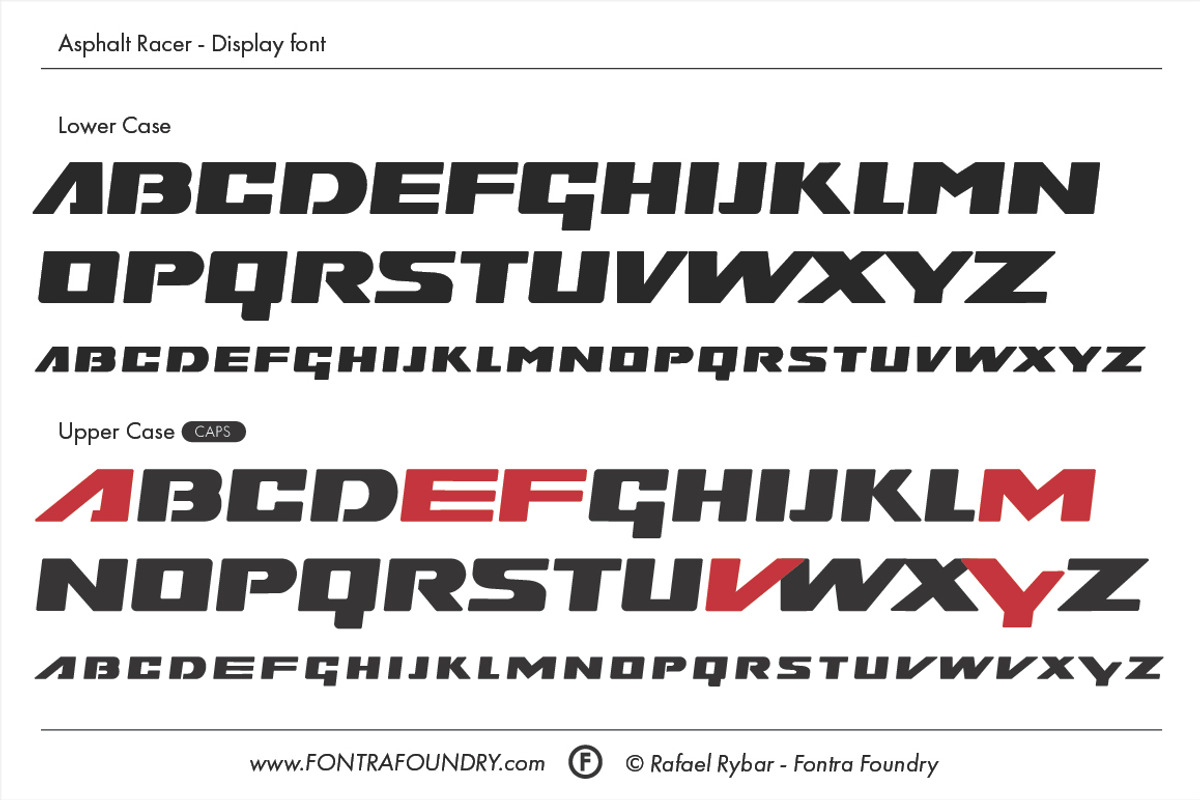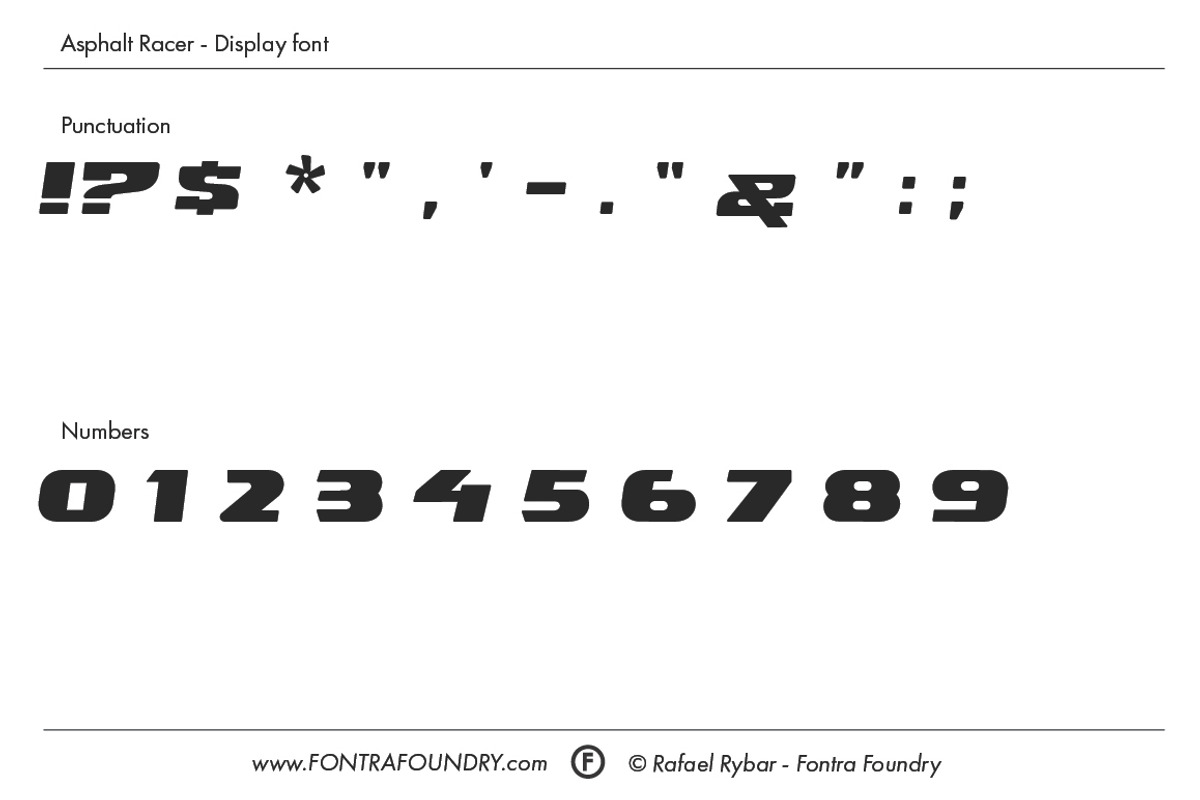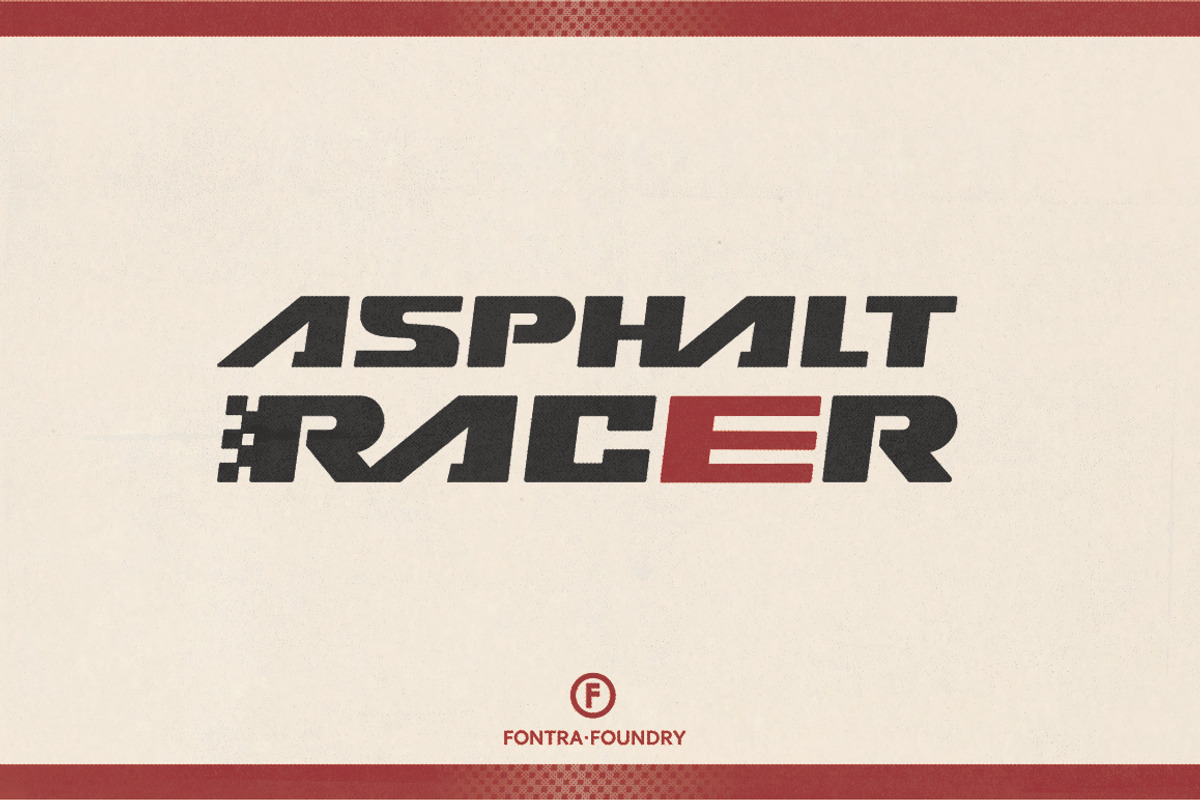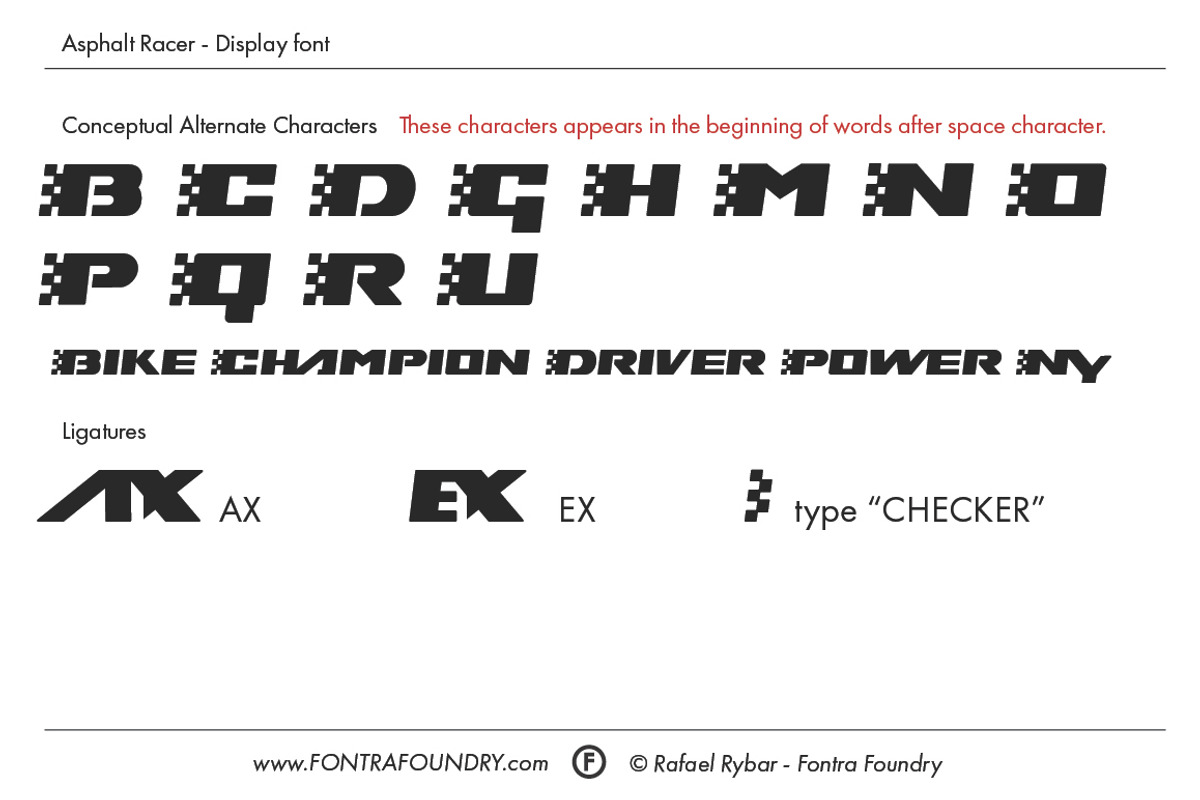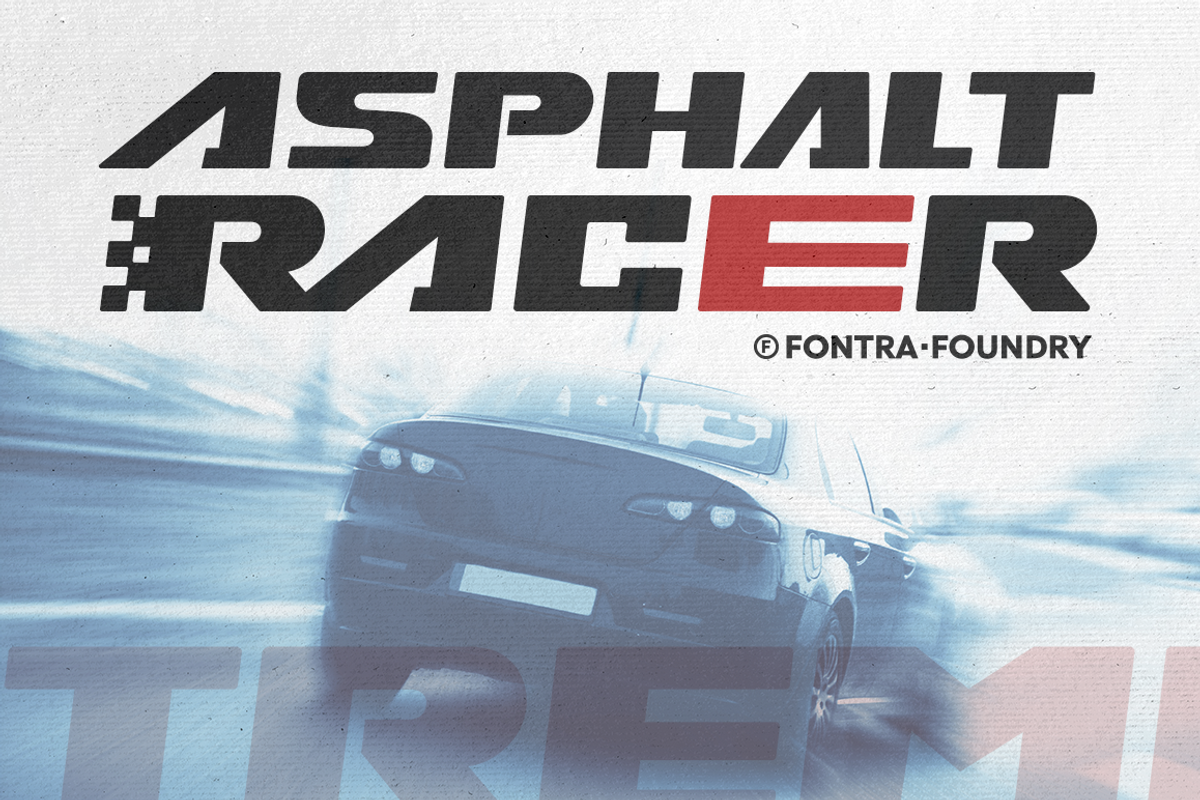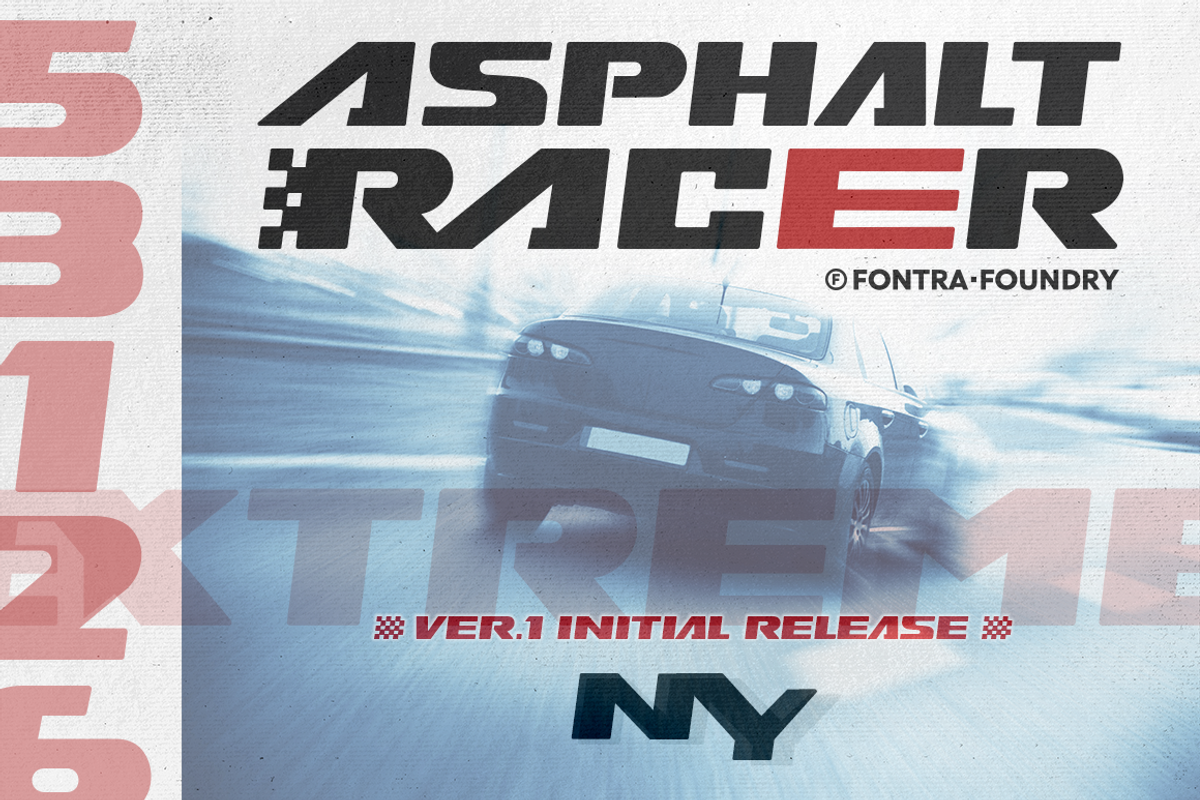
Asphalt Racer is bold, dynamic, wide format, masculine sports display font. It is suitable for use on narrow sports equipment, sticks, bikes etc. It is all caps font with several alternative characters, stylistic alternates, and ligatures. GRAB IT NOW with 50% discount for you ;) Use it and enjoy it !
• For contextual alternates and ligatures don't forget to click the Standard ligatures button and Contextual alternates button in your app. that you are using. Type CHECKER and copy and paste it for several times to create checker seamless pattern.
- It is all caps font with several alternative characters, stylistic alternates, and ligatures.